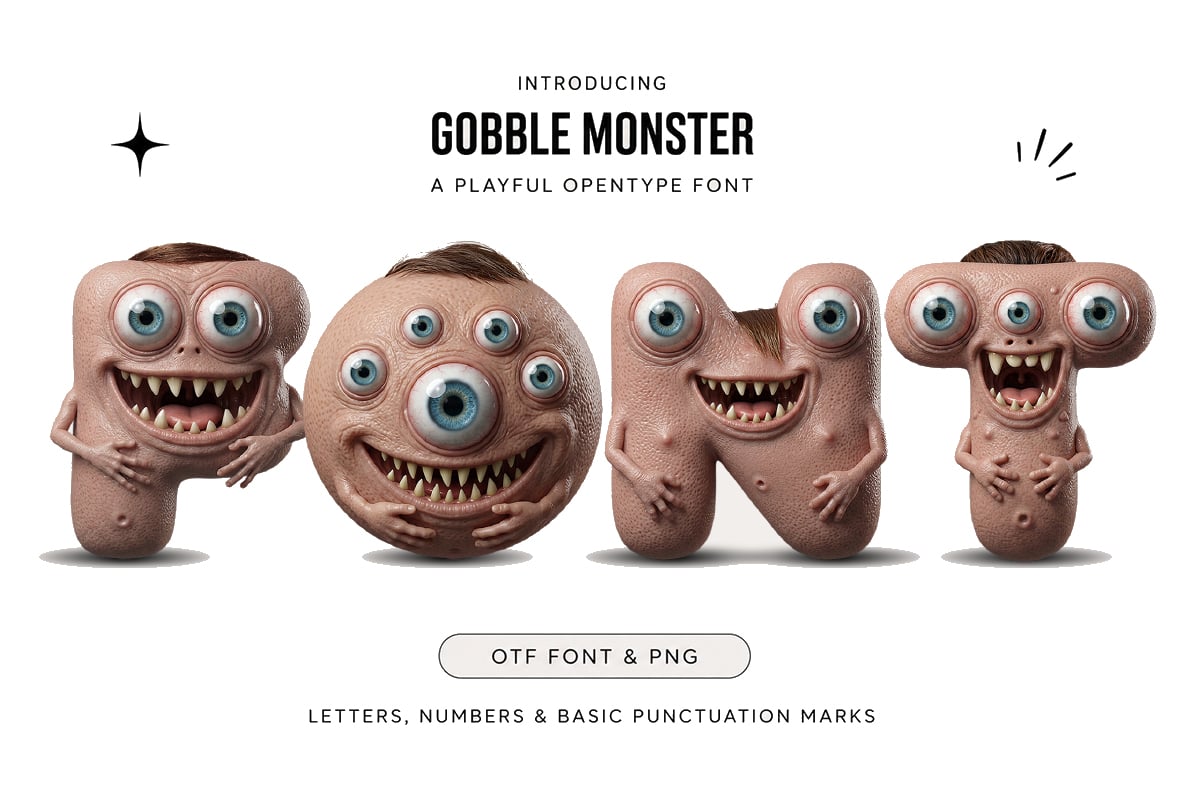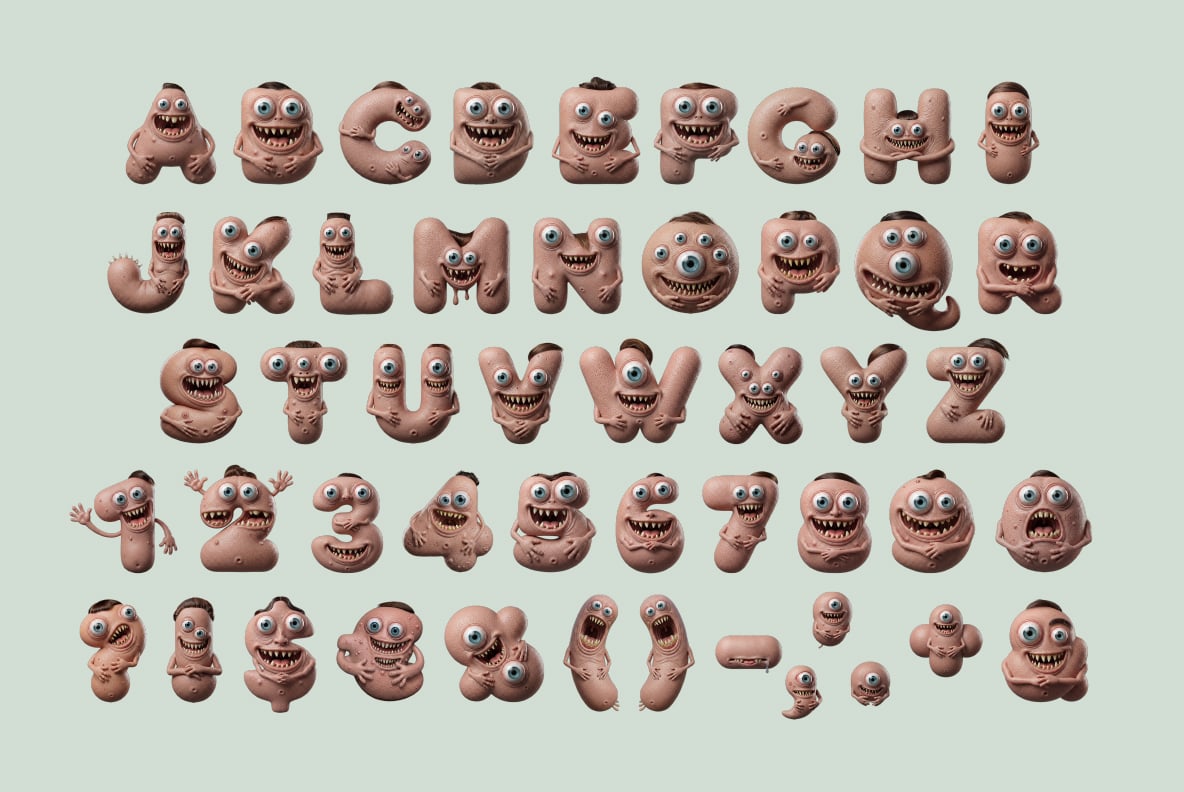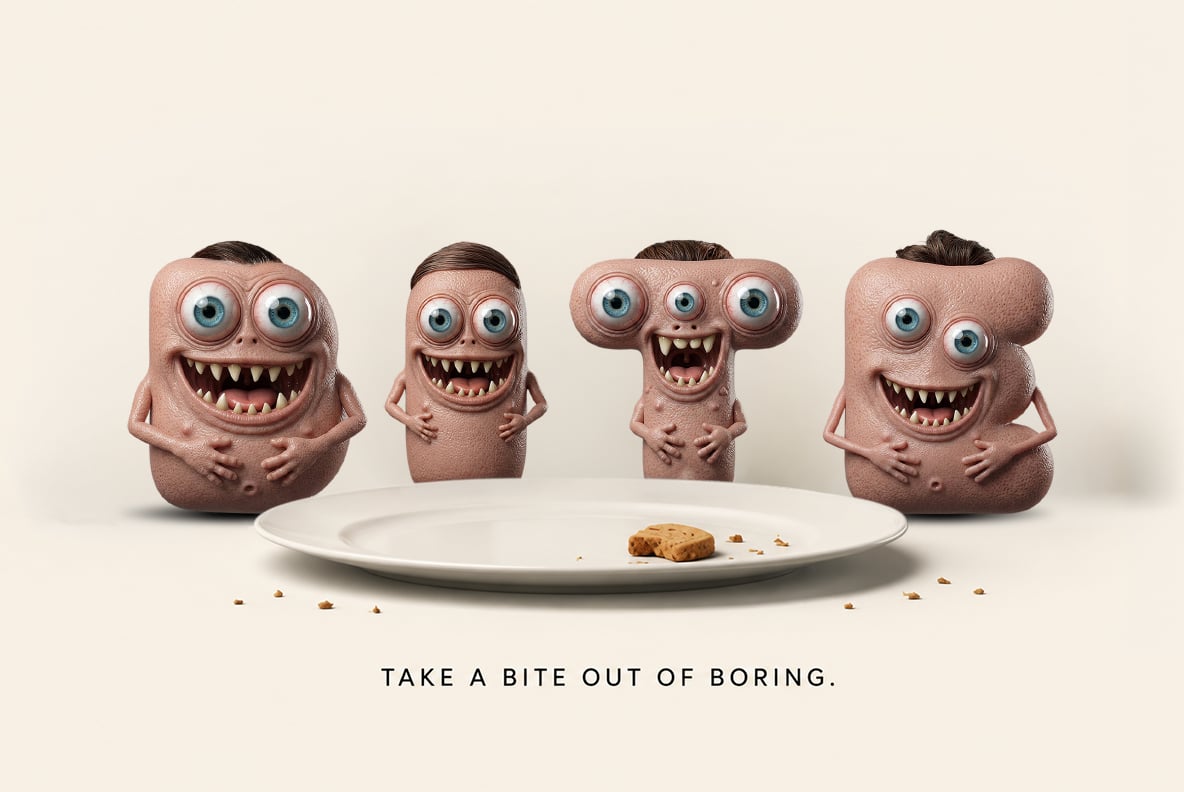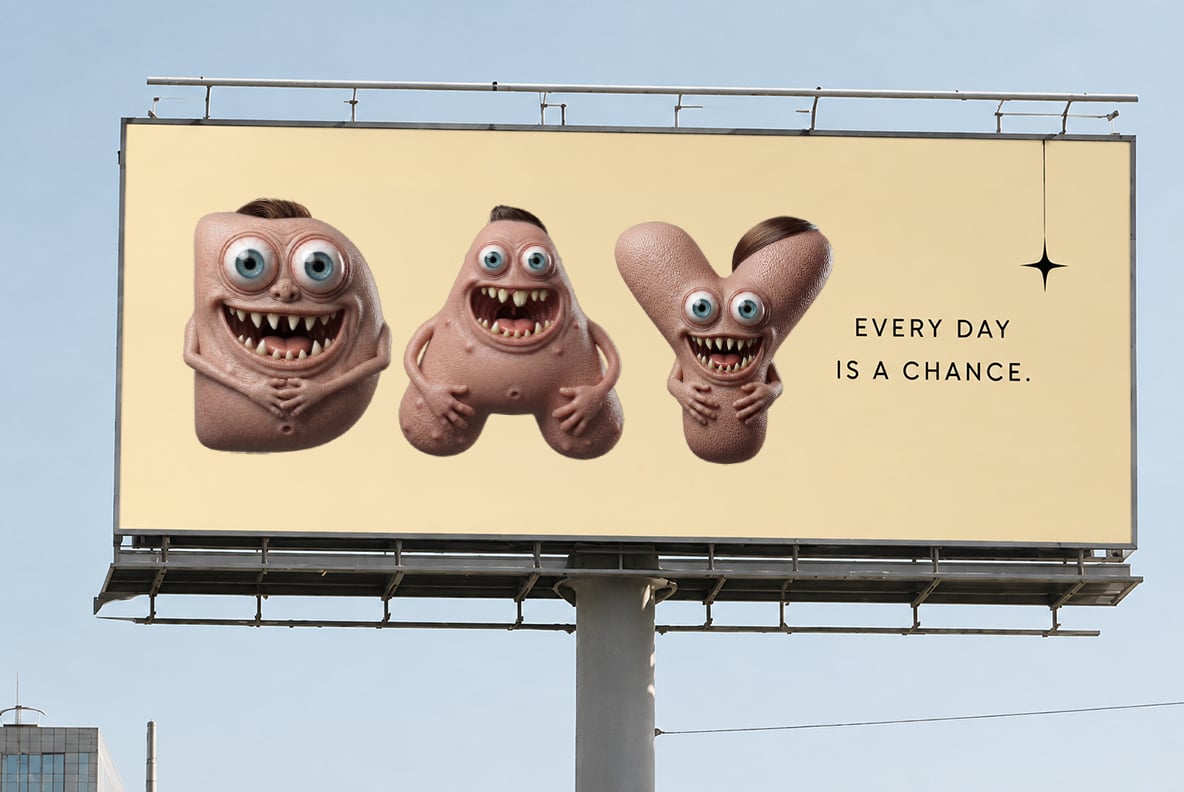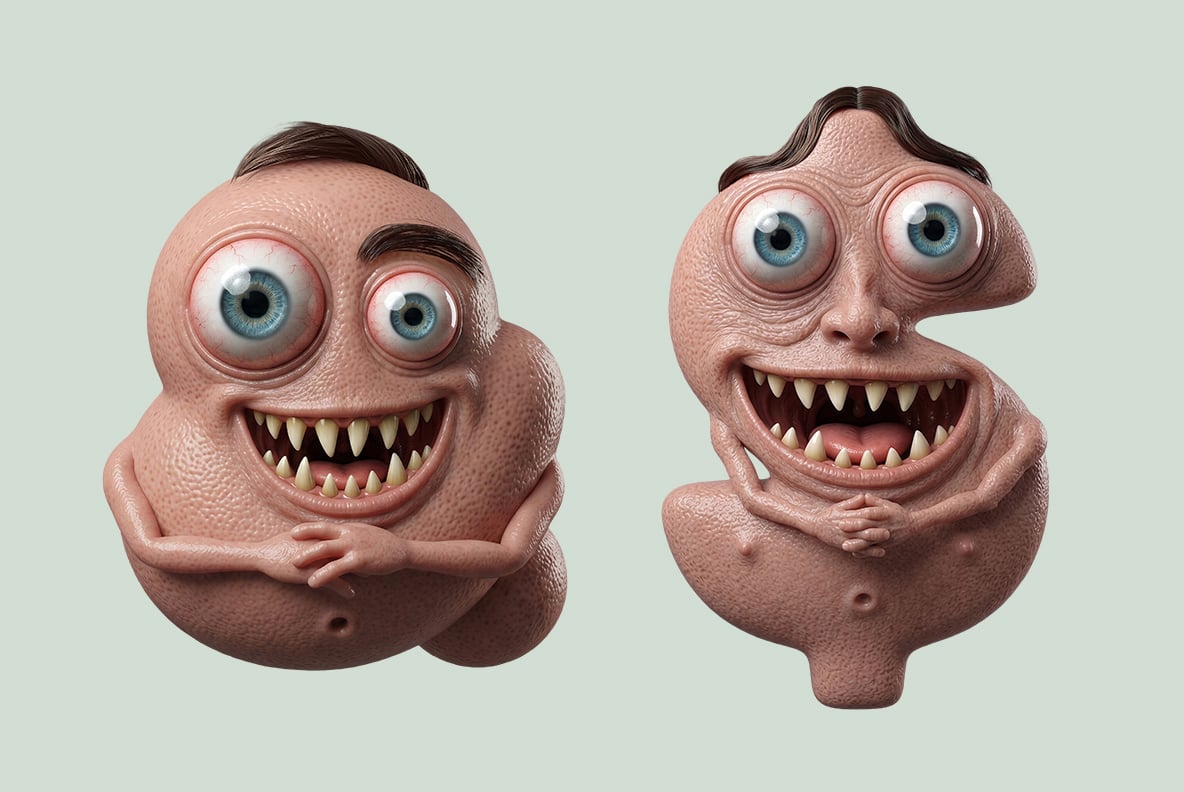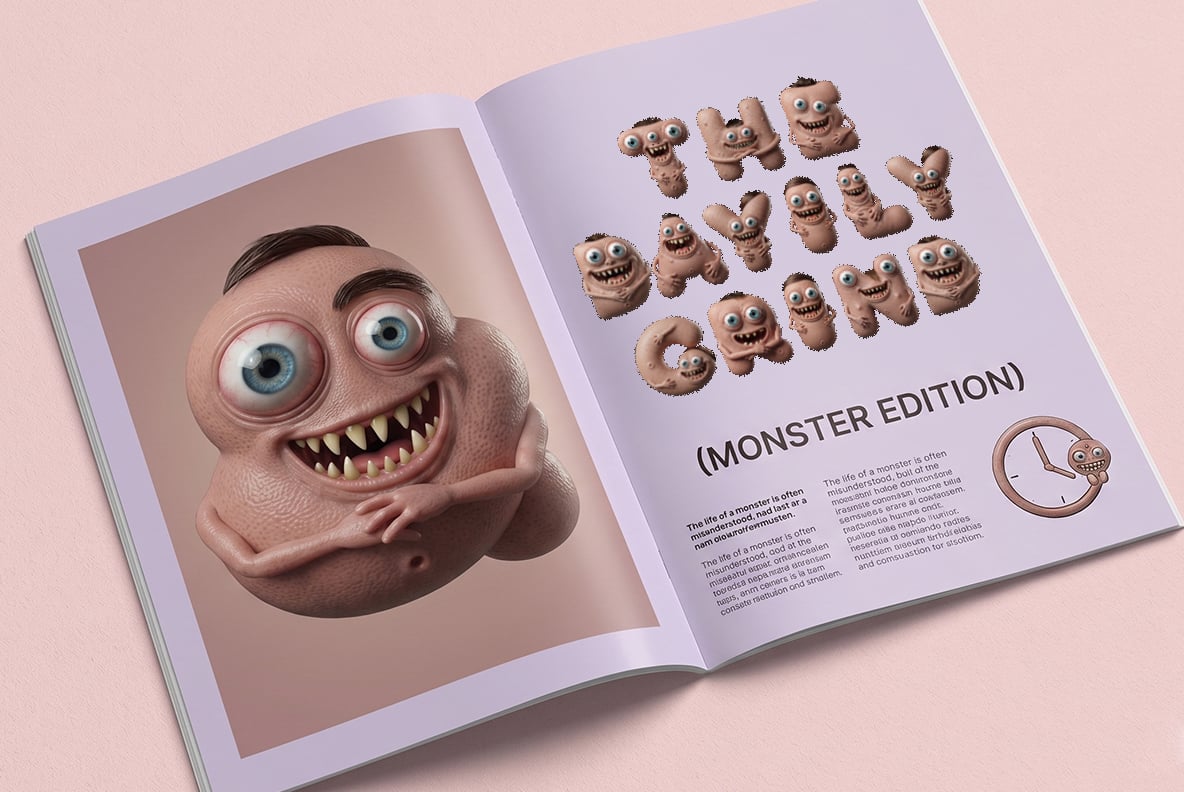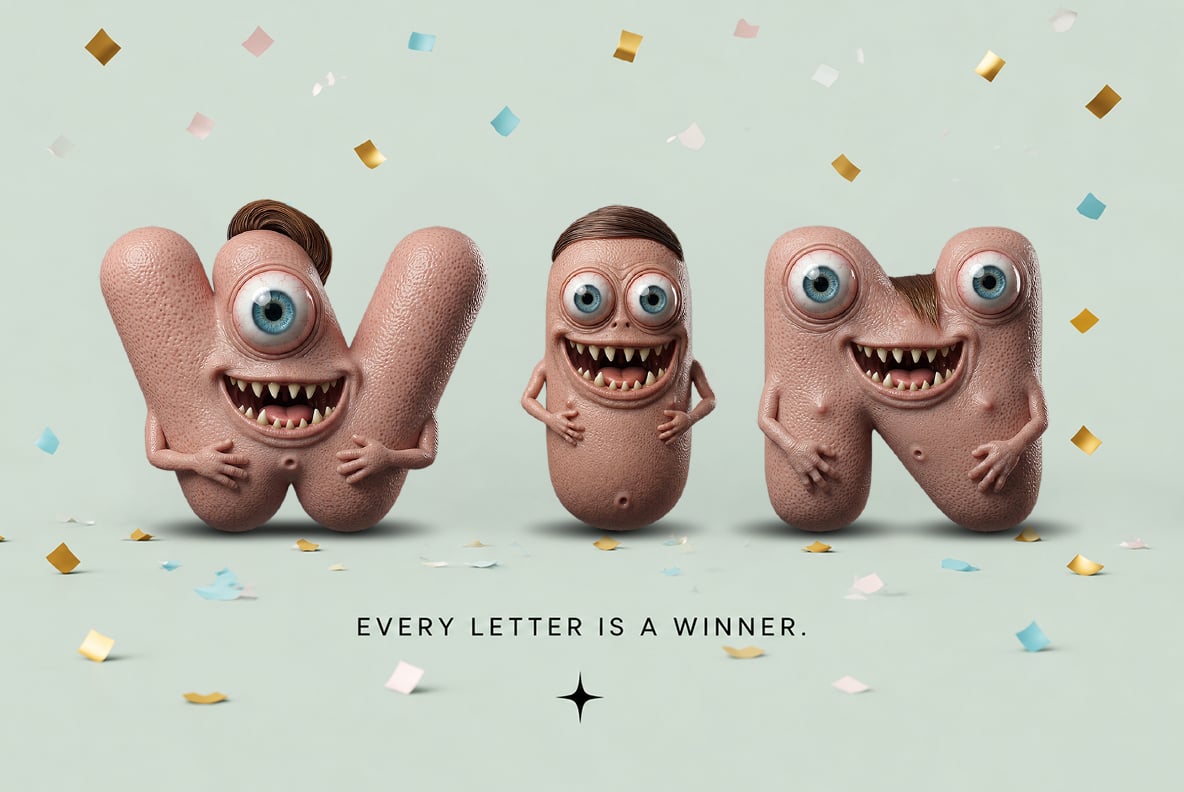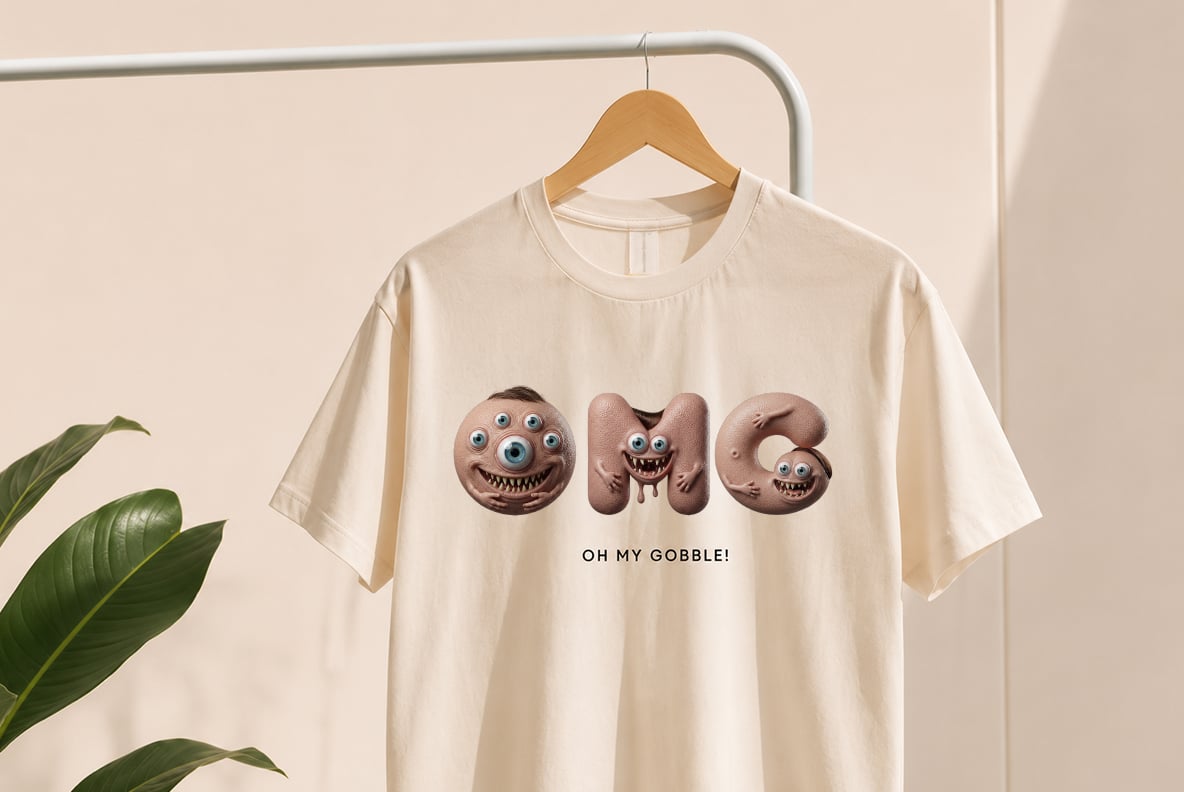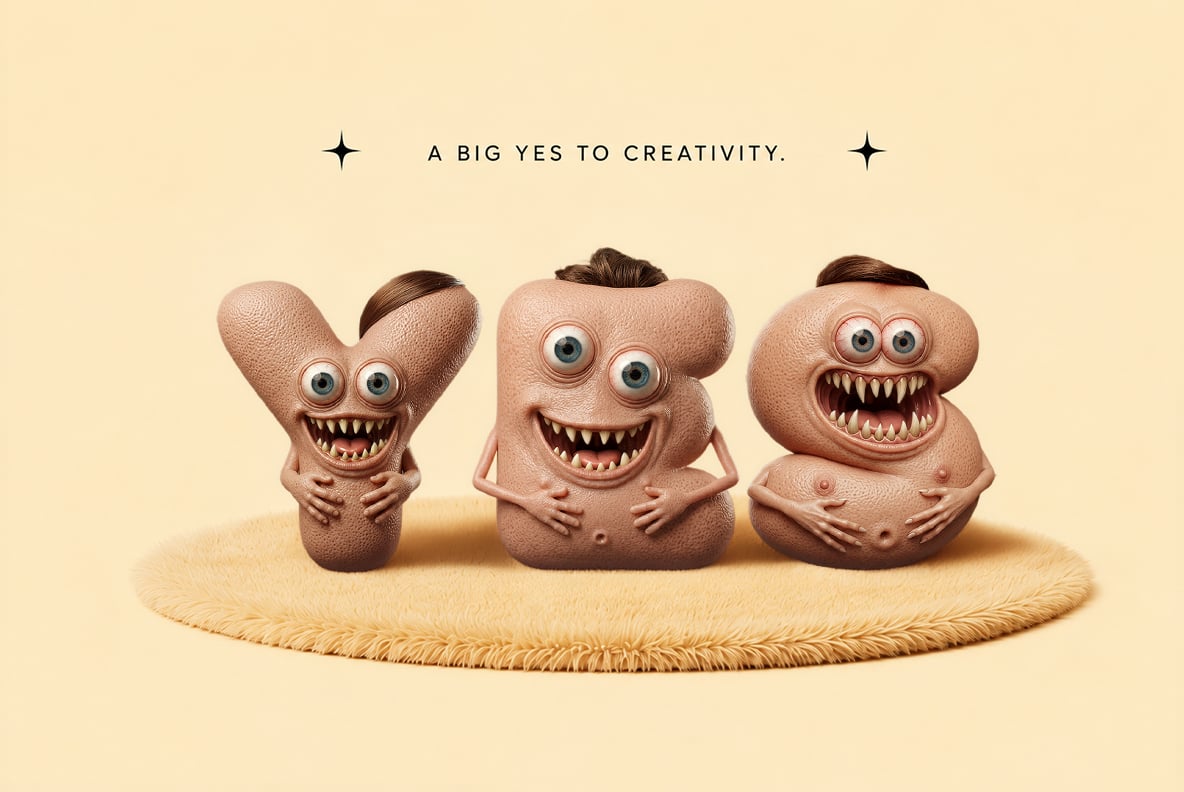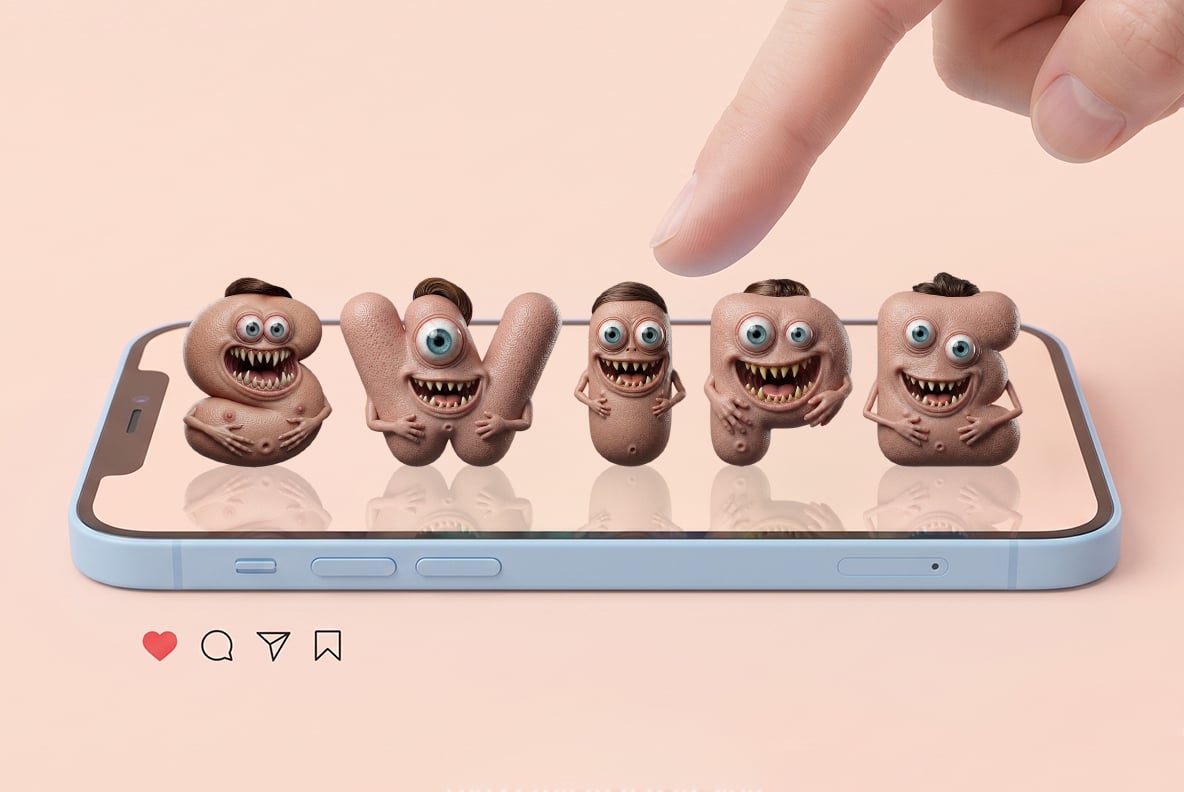
Gobble Monster Font
Gobble Monster Font is a wildly imaginative display typeface that transforms every letter into a quirky little monster full of personality. Packed with expressive eyes, playful smiles, funny teeth, and charming details, it is perfect for posters, branding, packaging, social media, games, children's projects, Halloween designs, and creative merchandise. The package includes the font in OTF format for easy installation and a complete collection of individual PNG letters with transparent backgrounds, giving you maximum flexibility for custom layouts, compositions, and illustrations. Bring humor, originality, and unforgettable monster energy to every design with Gobble Monster Font.